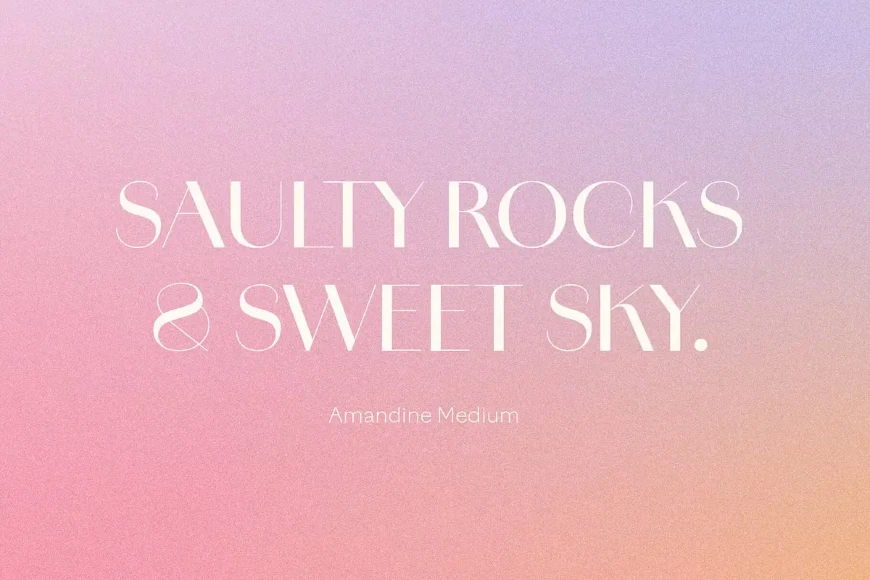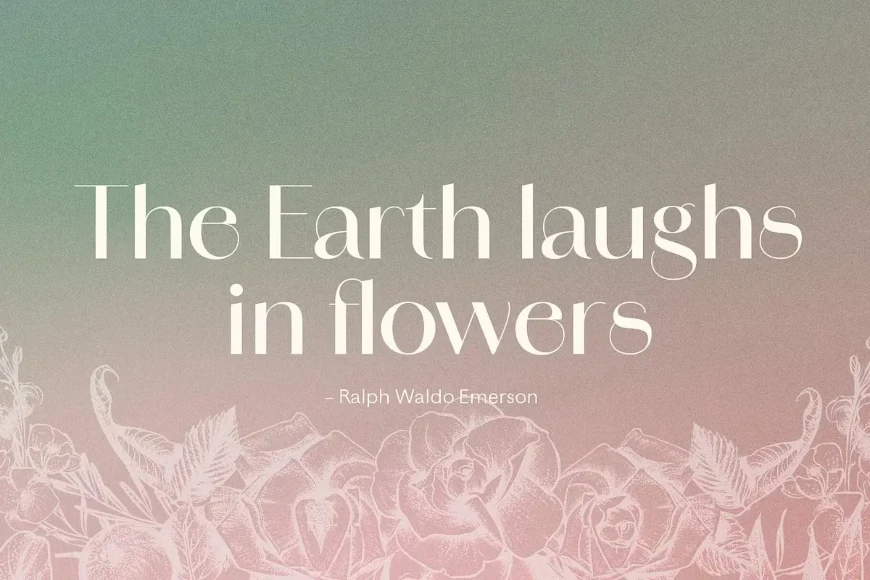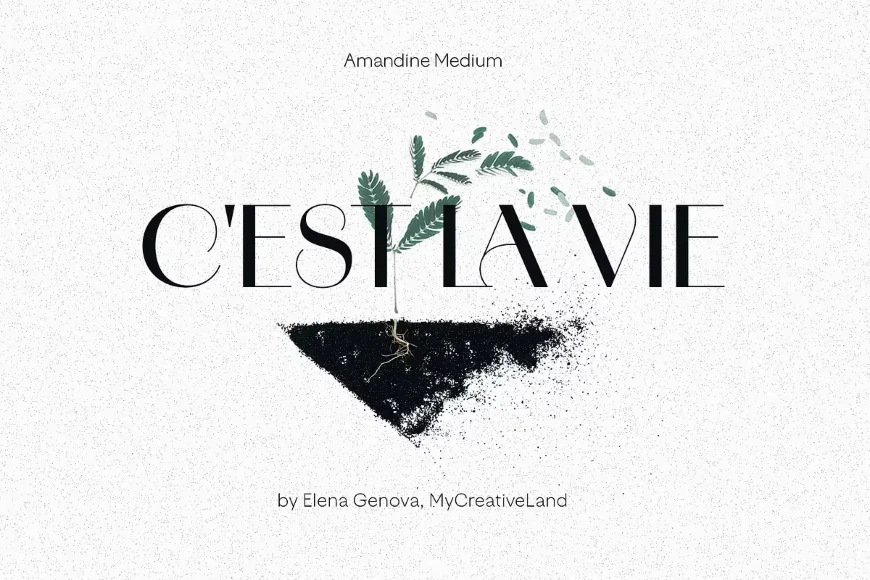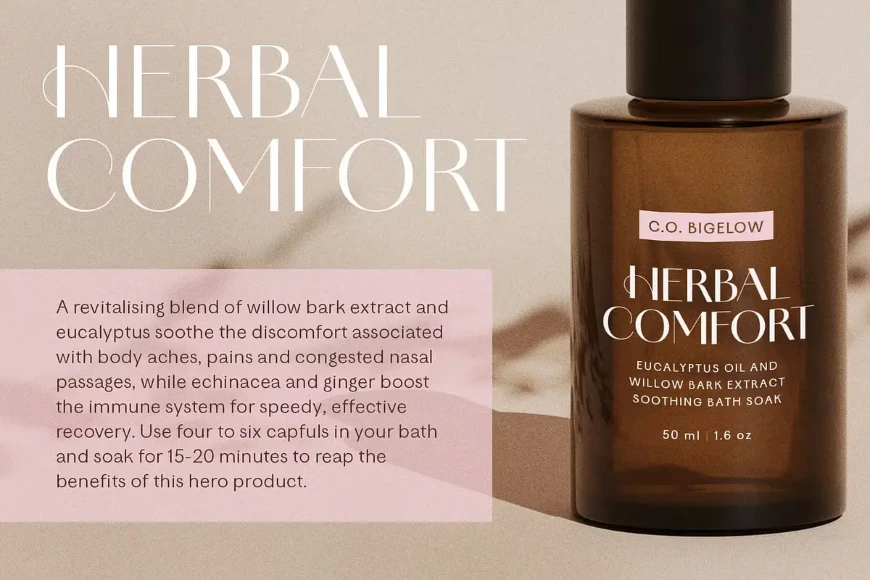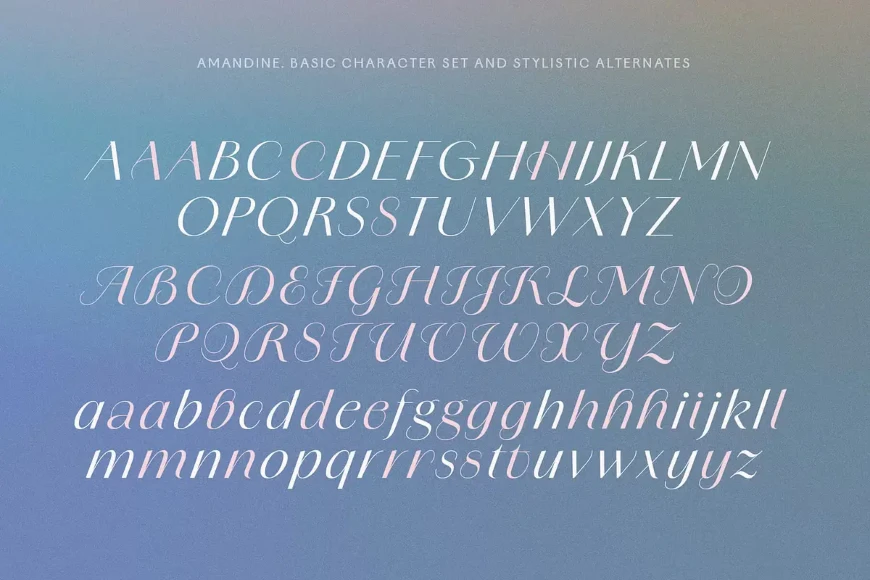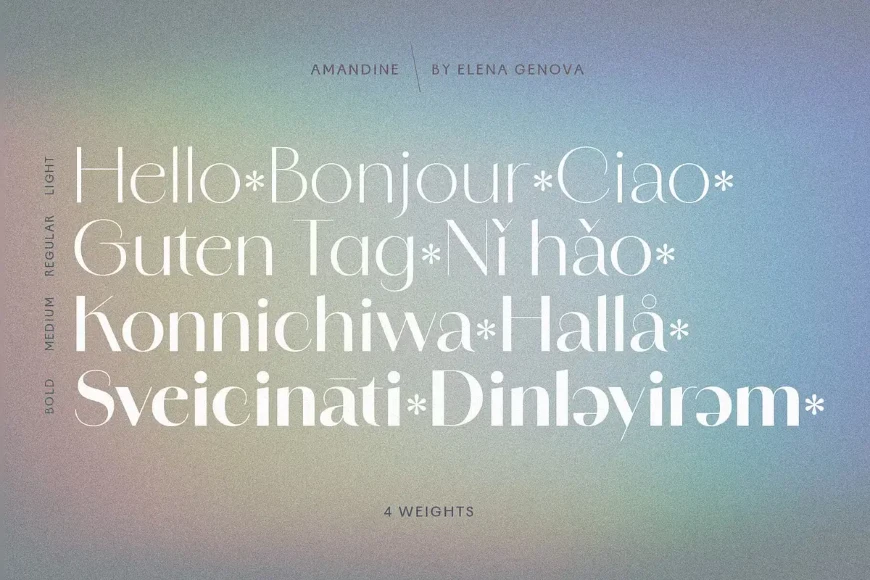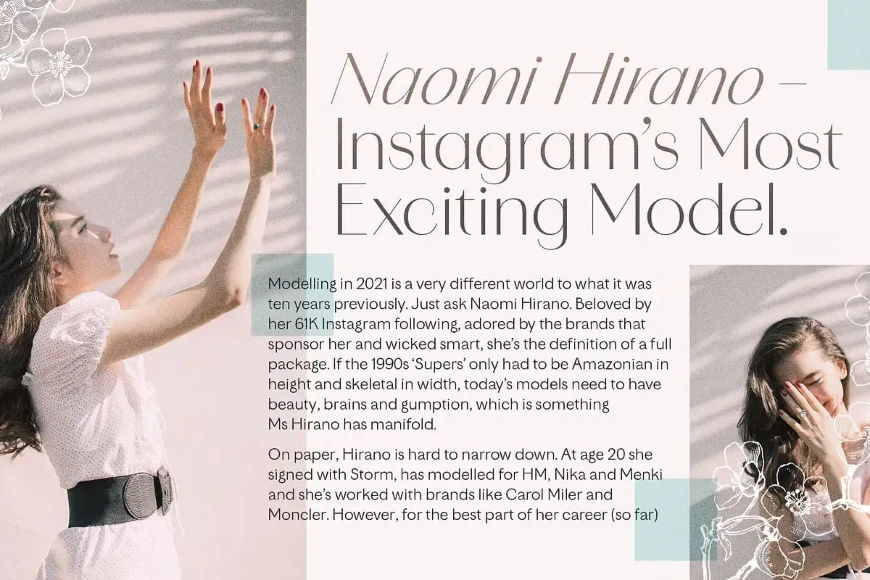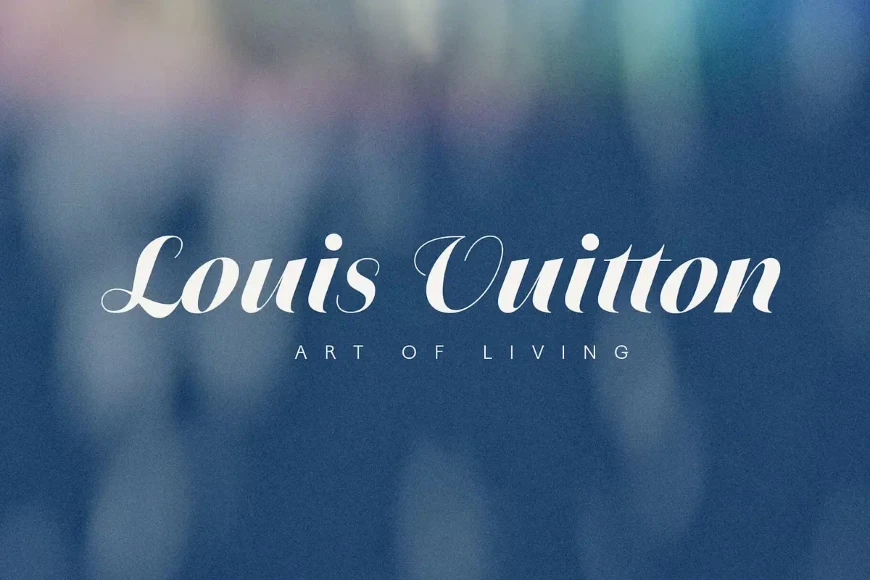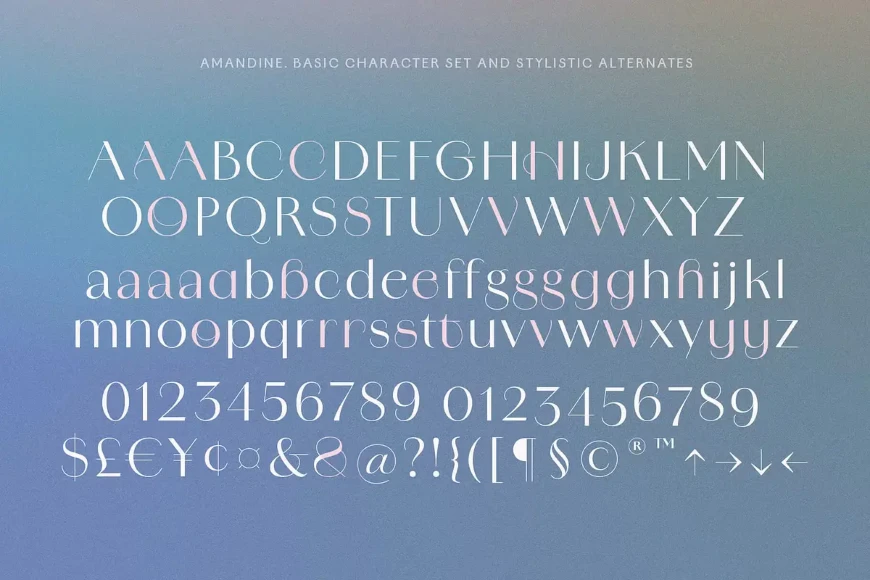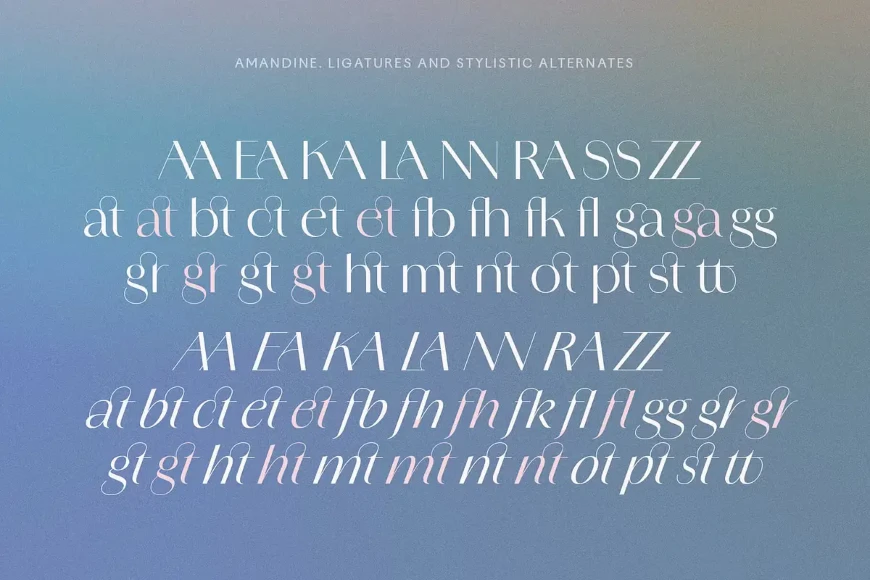
Amandine
By Elena Genova
Amandine is a modern high-contrast sans family inspired by Didone forms, vintage typefaces, and calligraphic scripts. The typefaces share the same signature curves, but the italics are original and delightfully unexpected. Their utility is only enhanced with stylistic alternates, ligatures, and swashes, making each use a little less off-the-rack. Its elegant design is well suited for the design of luxury brands, magazines, book covers, wedding invitations and stationery, packaging, and more.